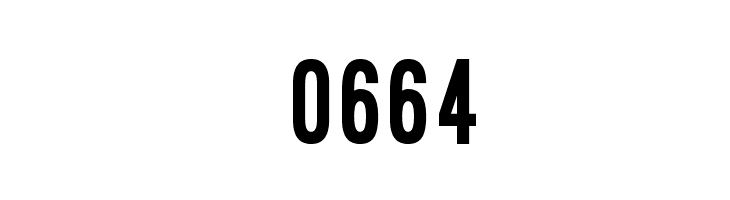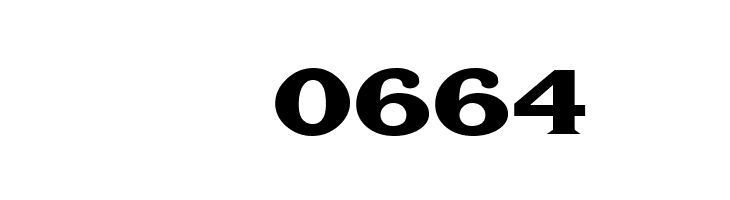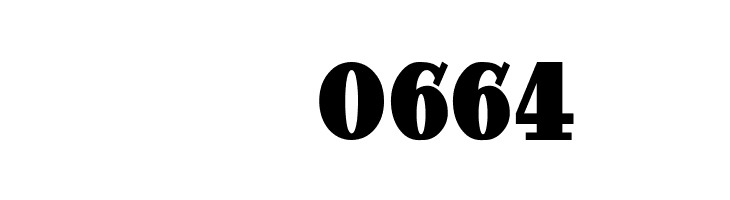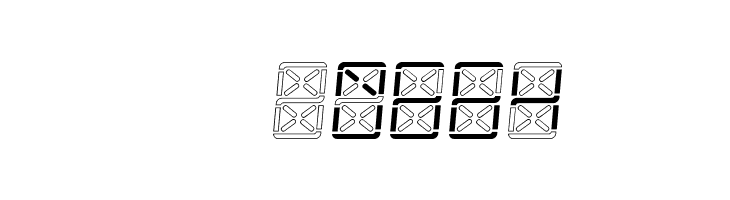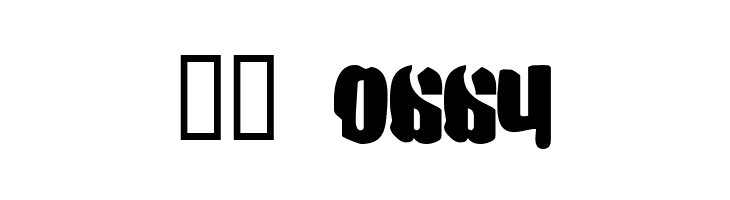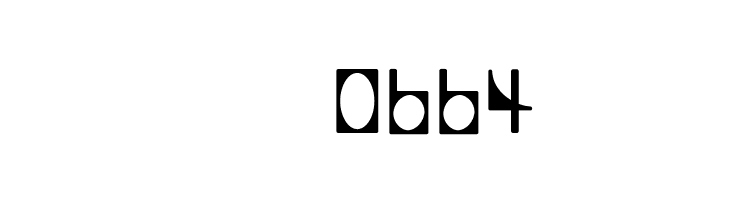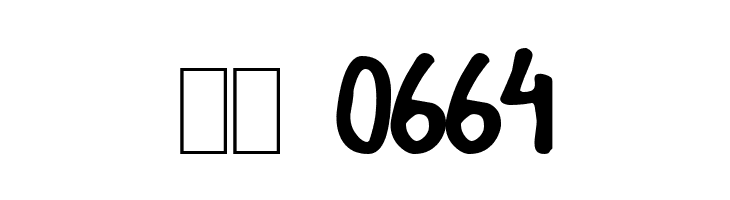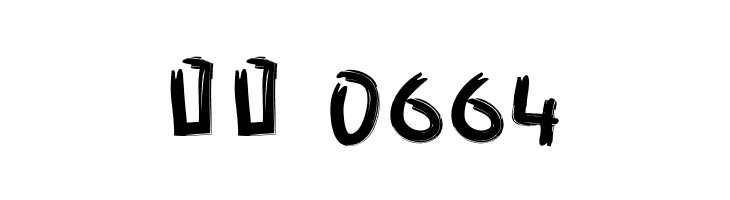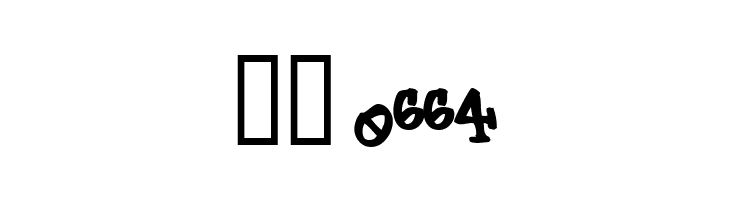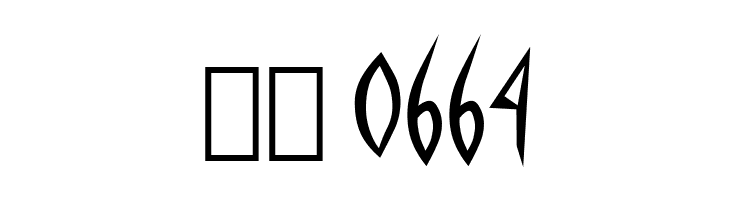
A modern, geometric font with angular shapes and a futuristic feel.
A bold, condensed font with tall, narrow letterforms and consistent stroke thickness.
A bold, decorative font with an artistic, hand-drawn style.
A bold, modern font with clean lines and a geometric influence.
A bold, outlined font with a three-dimensional effect and consistent character height.
A geometric, maze-like font with bold outlines and a futuristic style.
A bold, thick font with wide, robust characters ideal for impactful designs.
A bold, vintage-style font with strong serifs and dynamic presence.
Evenly spaced square hole grid pattern.
A bold, rugged font with a distressed, blocky design.
A bold, artistic font with sharp angles and smooth curves, offering a modern and futuristic aesthetic.
A decorative, nature-inspired font with intricate, vine-like details.
An elegant calligraphic font with ornate swashes and flourishes.
A bold, modern font with a unique hollow outline and geometric style.
A playful, hand-drawn font with bold, rounded characters.
A playful, brush-stroke style font with a creative and artistic flair.
A playful, hand-drawn font with bold, irregular strokes and quirky letterforms.
A bold, slab serif font with a vintage Western style.
A Gothic-inspired font with ornate, medieval-style characters.
A bold, geometric font with Art Deco influences, ideal for striking headlines.
A bold, playful font with jagged outlines and dynamic character shapes.
A bold, geometric font with a striped, futuristic design.
A playful, bold font with rounded, flowing strokes and a lively appearance.
A vintage, typewriter-style font with a distressed, rugged texture.